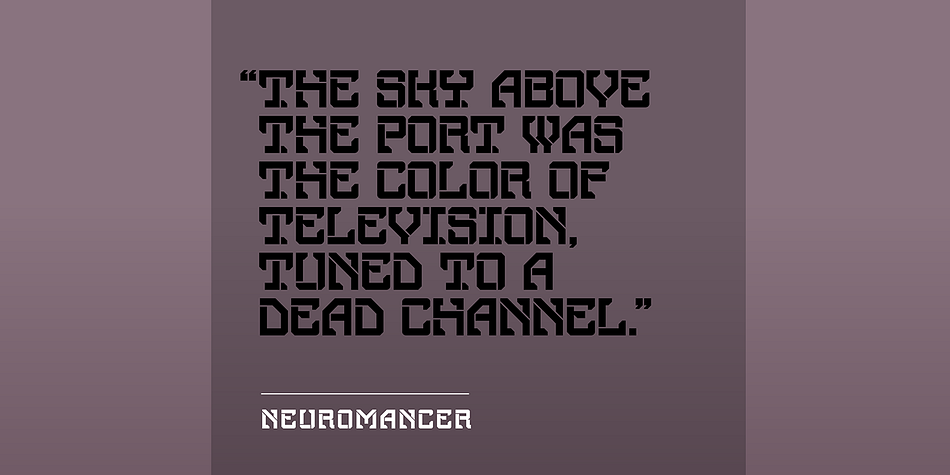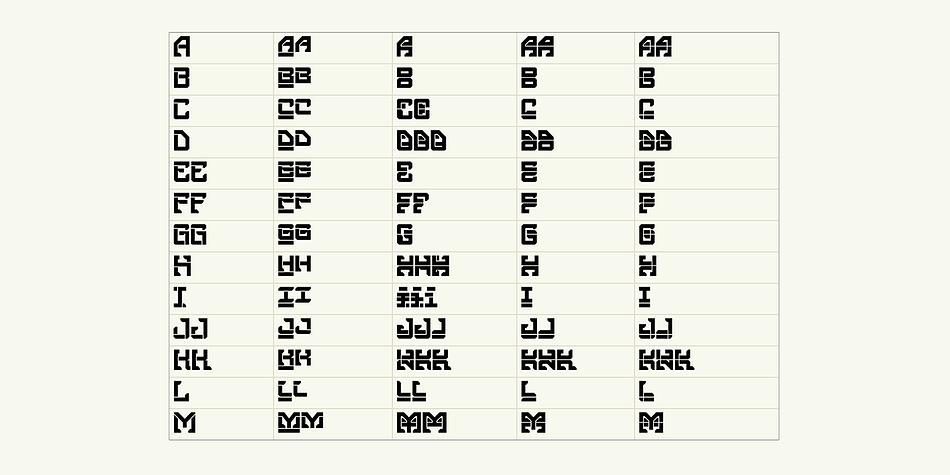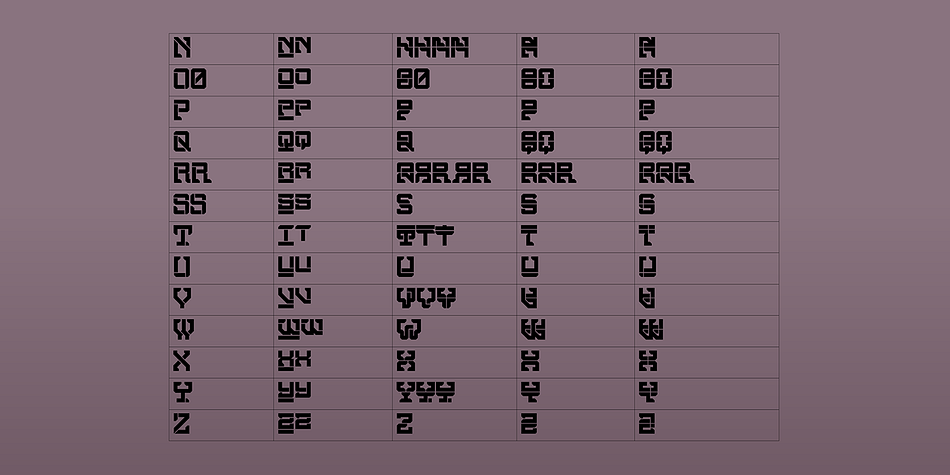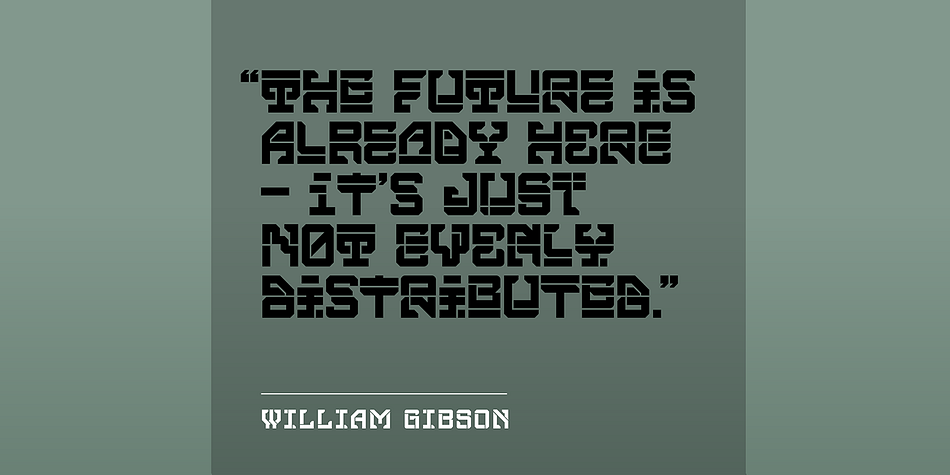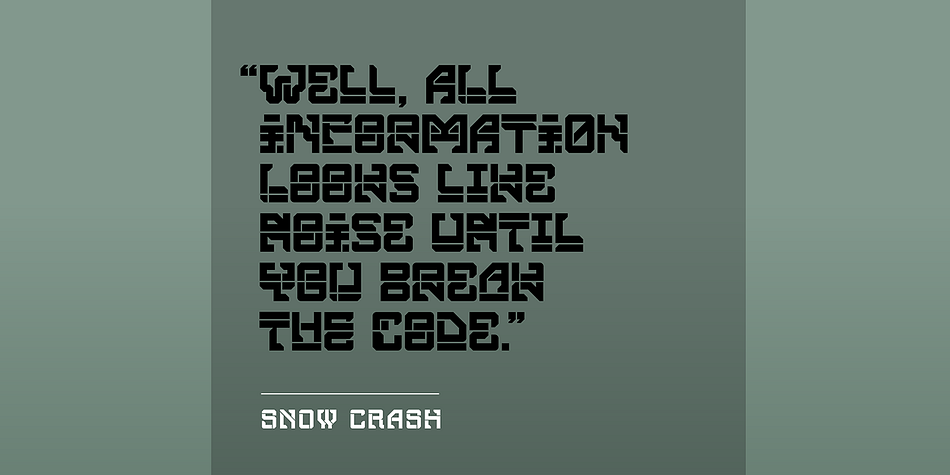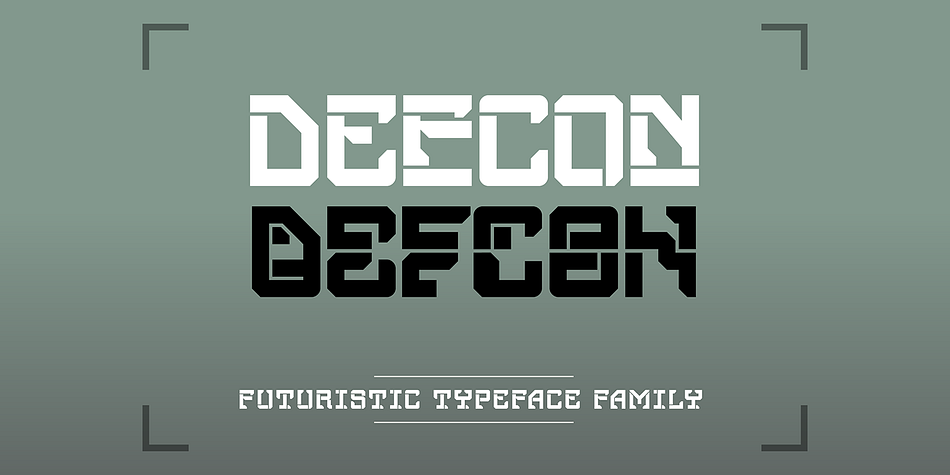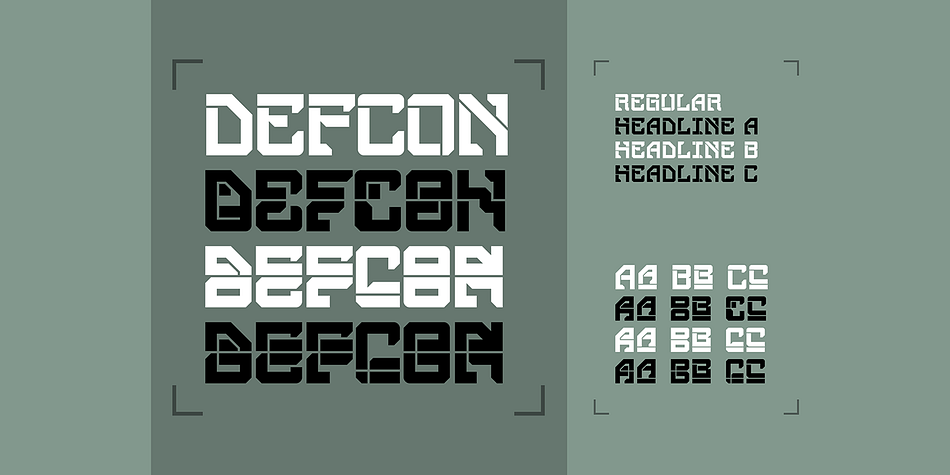
Designed by Craig Stainton, SB Defcon is a display sans and novelty font family. This typeface has four styles and was published by SelfBuild Type Foundry.
SB Defcon is a pack of four fonts that are designed to be mixed and matched. This family contains a regular version plus three headline fonts and many characters contain stylistic alternatives.
• Mix and match upper and lower case. Set your text to all caps and then disable it for individual characters to substitute the lower case glyphs. All fonts share the same lower case and capitals can be mixed between fonts to great creative effect.
• Each font contains between 596 and 625 glyphs including accented characters, punctuation and alternatives glyphs.
• Support for 89 languages.